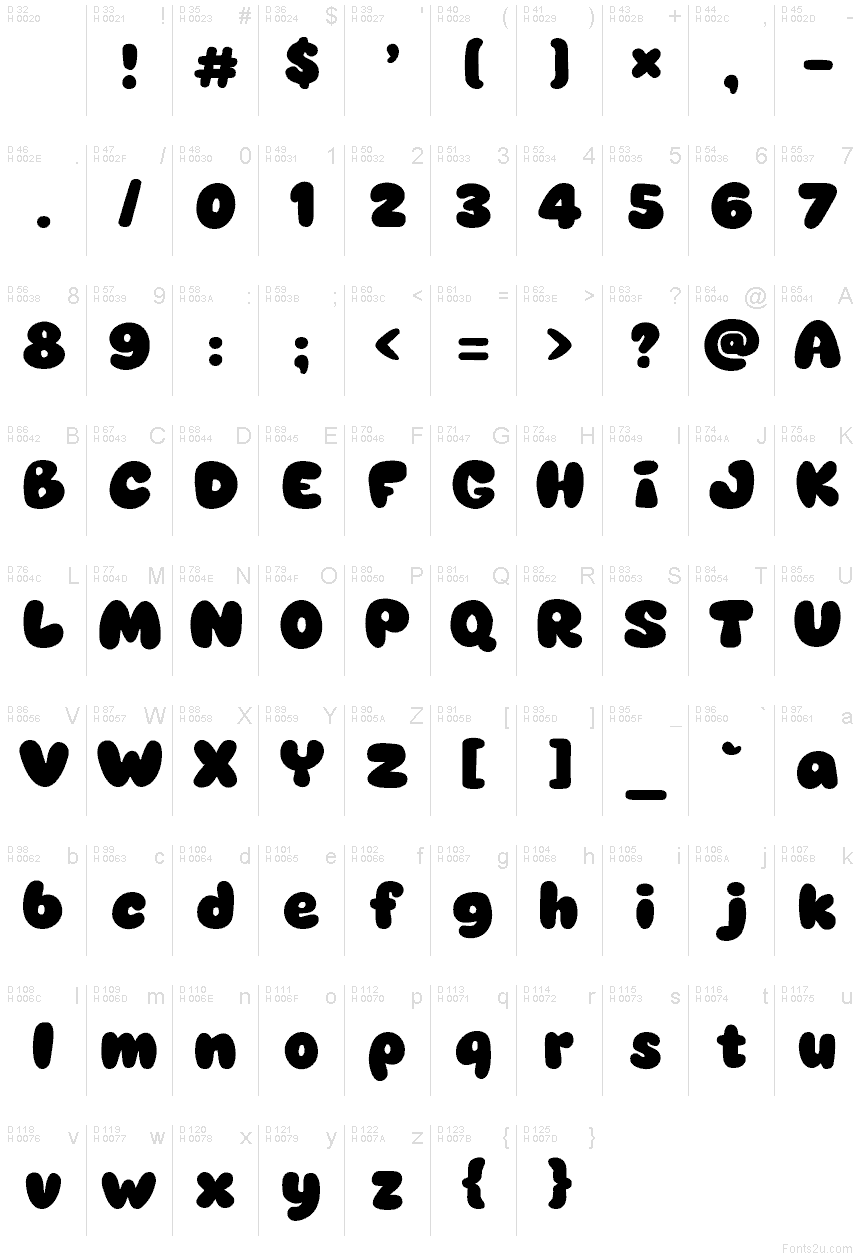
Coco Chamel
Coco Chamel font by BlackFridayFont FMF is a free cartoon display typeface. Big, pillowy curves and blobby counters give it a marshmallow-soft bounce that reads loud and friendly, even at a glance. The shapes feel hand-inked and slightly squished, creating a playful rhythm that pulls eyes toward your headline without ever feeling shouty.
Using Coco Chamel, you’ll get instant charm for kids’ logos, candy or snack packaging, birthday invitations, toy branding, app splash screens, YouTube thumbnails, and ice cream menus. Its chunky weight loves bright color and simple backgrounds; set it large with a little extra letter spacing to keep things airy. Pair this free font with a neat geometric sans for captions to let the bubbly forms take center stage.